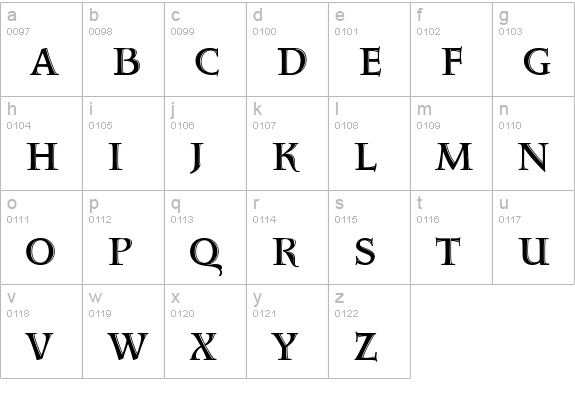
Aquitaine Initials Std is a stunning and elegant font that exudes sophistication and timeless beauty. Featuring intricate details and ornate embellishments, this font is perfect for adding a touch of elegance to any project or design. Its classic yet modern style makes it versatile and suitable for a wide range of applications, from wedding invitations to branding and more. Best of all, Aquitaine Initials Std is completely free to download at FontsMarket.com. Whether you're a designer looking to add a unique flair to your work or someone who appreciates the artistry of beautiful typography, this font is sure to impress. Don't miss out on the opportunity to enhance your projects with the exquisite beauty of Aquitaine Initials Std. Download it today and elevate your designs to new heights.